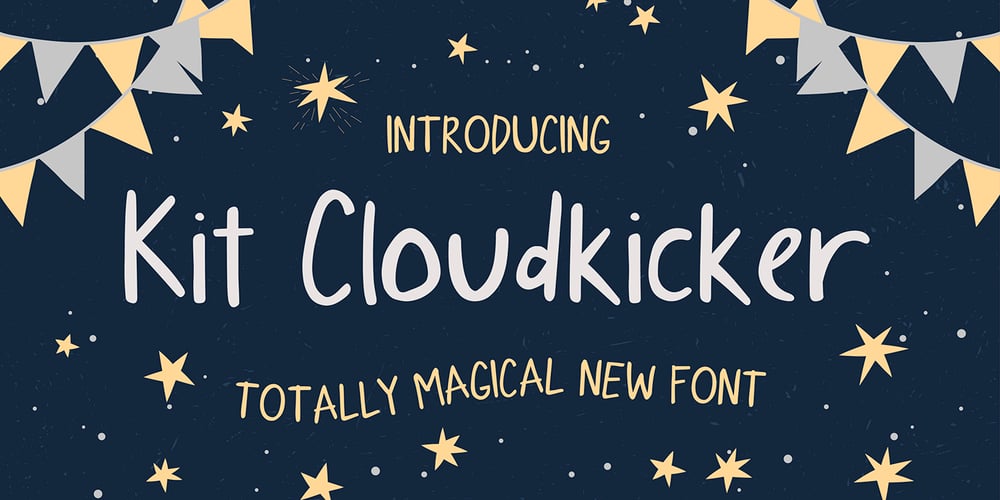
Kit Cloudkicker
Kit Cloudkicker font
Kit Cloudkicker Font Family was designed by Anastasia Kuznetsova and published by Anastasia Kuznetsova. Kit Cloudkicker contains 1 styles and family package options. I present to you the universal everyday font ‘Kit Cloudkicker’!! This font is very versatile and can be used in various styles of projects where a fast relaxed handwritten font is required. Filled with fun and energetic brush strokes, this font will undoubtedly add a touch of playfulness to your text – perfect for greeting cards, branding, merchandise, invitations and handmade quotes!The ‘Kit Cloudkicker’ font is so easy to use and create completely unique, hand-made words every time. It looks so great!!Font Features A-Z; a-z character set; 1 language (English); numbers and punctuation marks, symbols. A font containing uppercase and lowercase letters, numbers, and a wide range of punctuation marks.Fonts can be opened and used in any software that can read standard fonts, even in MS Word. No special software is required, and to get started.It is recommended to use it in Adobe Illustrator or Adobe PhotoshopMade with love and magic ♡Thanks for checking it out, and feel free to drop me a message if you had any queries!~ Anastasia